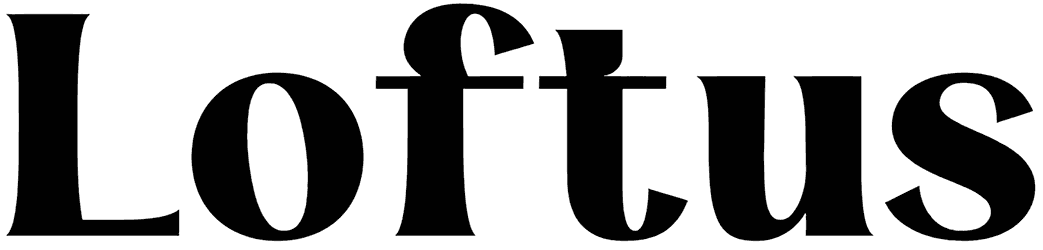
Loftus Font
What makes this font special is that it includes intangible serifs in its letters’ edges that add formality and sophistication to all printed screen texts. Loftus font offers clear letters that will make your long texts obvious, ideal for all kinds of presentations and decorative purposes. When we want a solid, classic, and retro letter, the serif font never goes out of style.